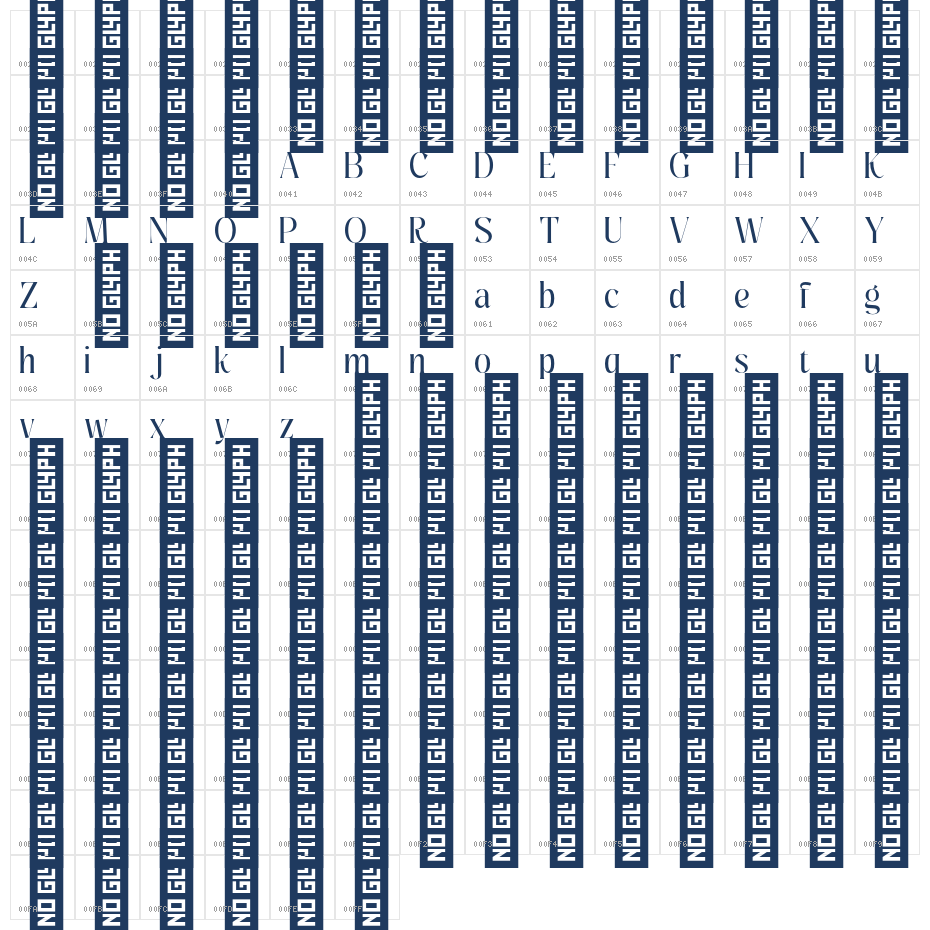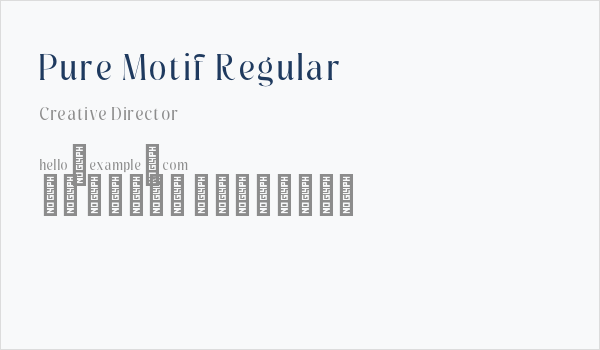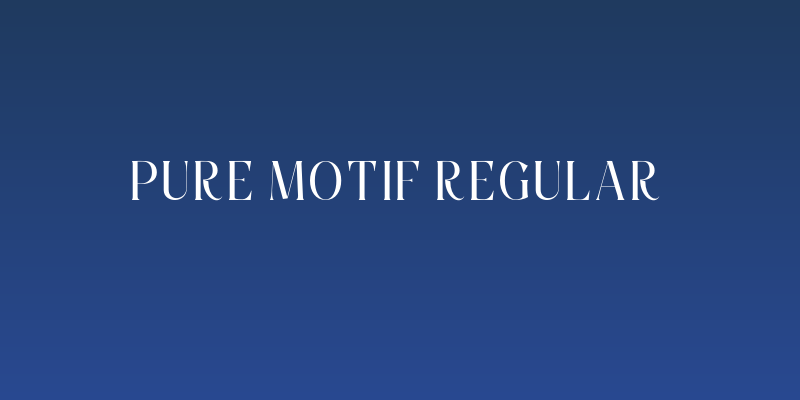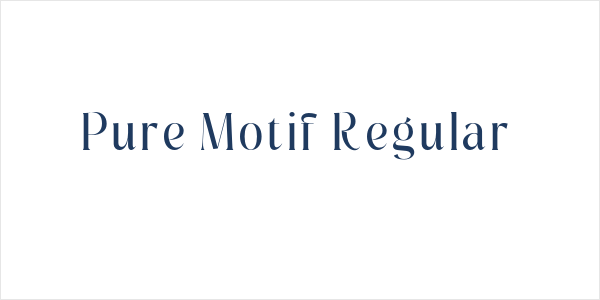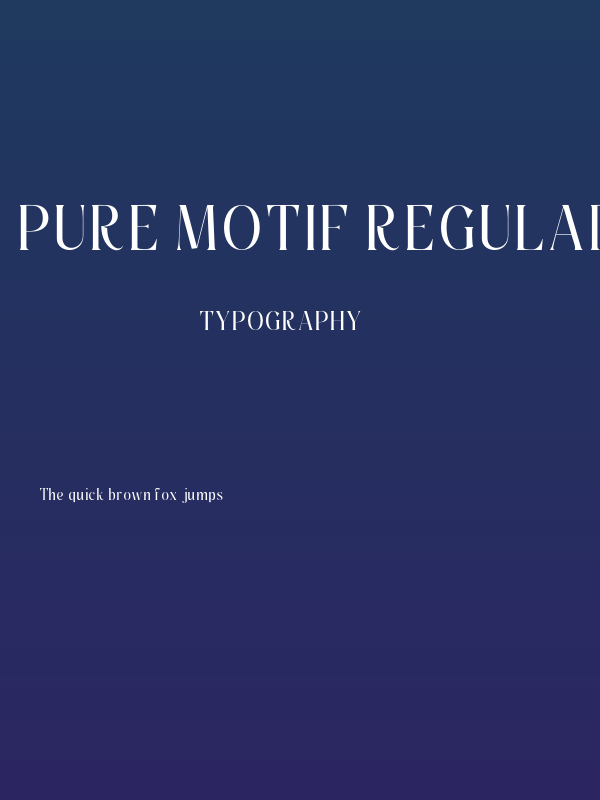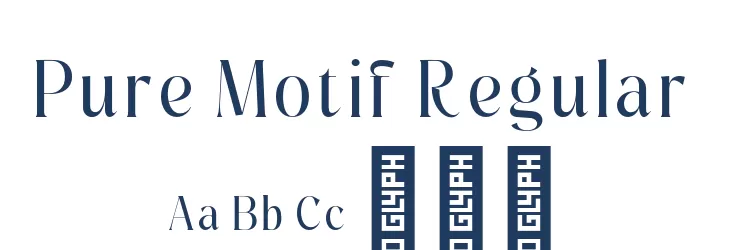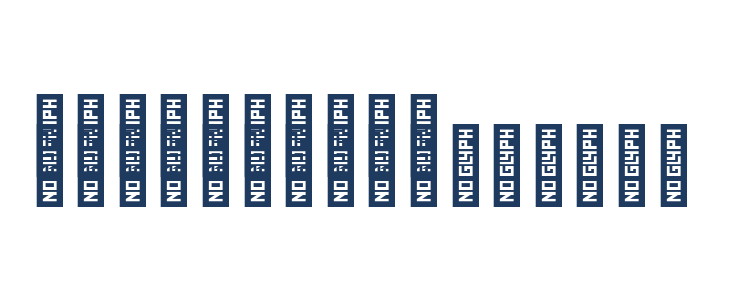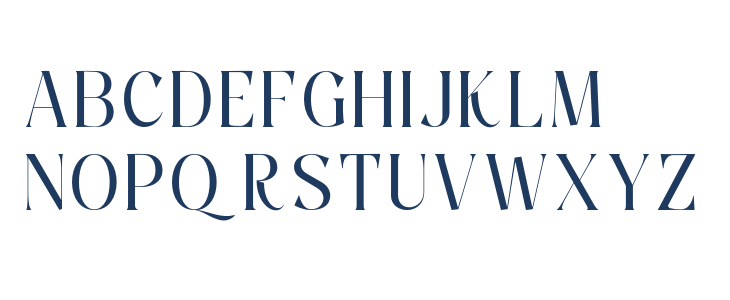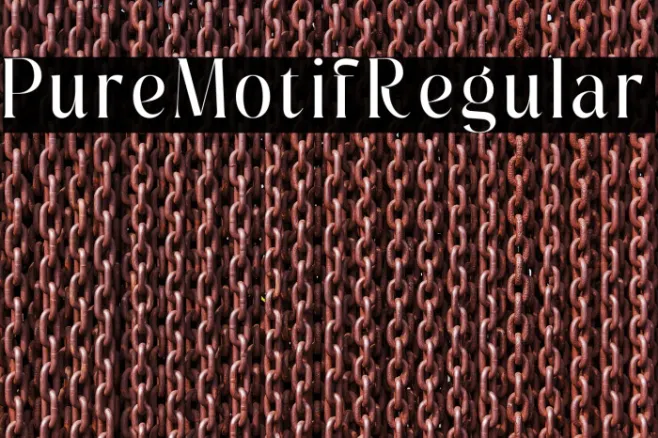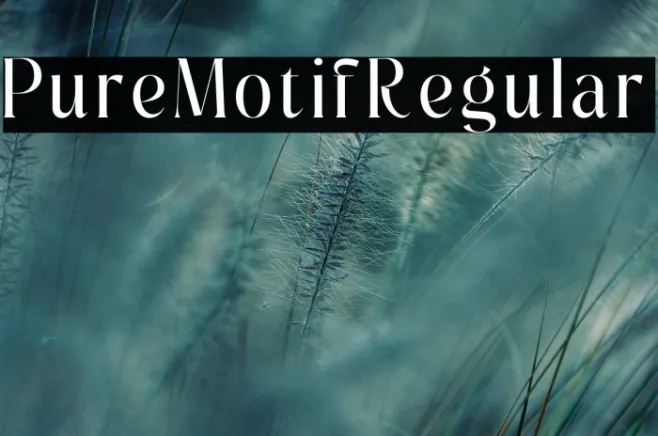
Pure Motif Regular Font
Pure Motif Regular Description
A serif font with elegant, high-contrast strokes and a refined appearance.
| Overall Style | Elegant, Classic |